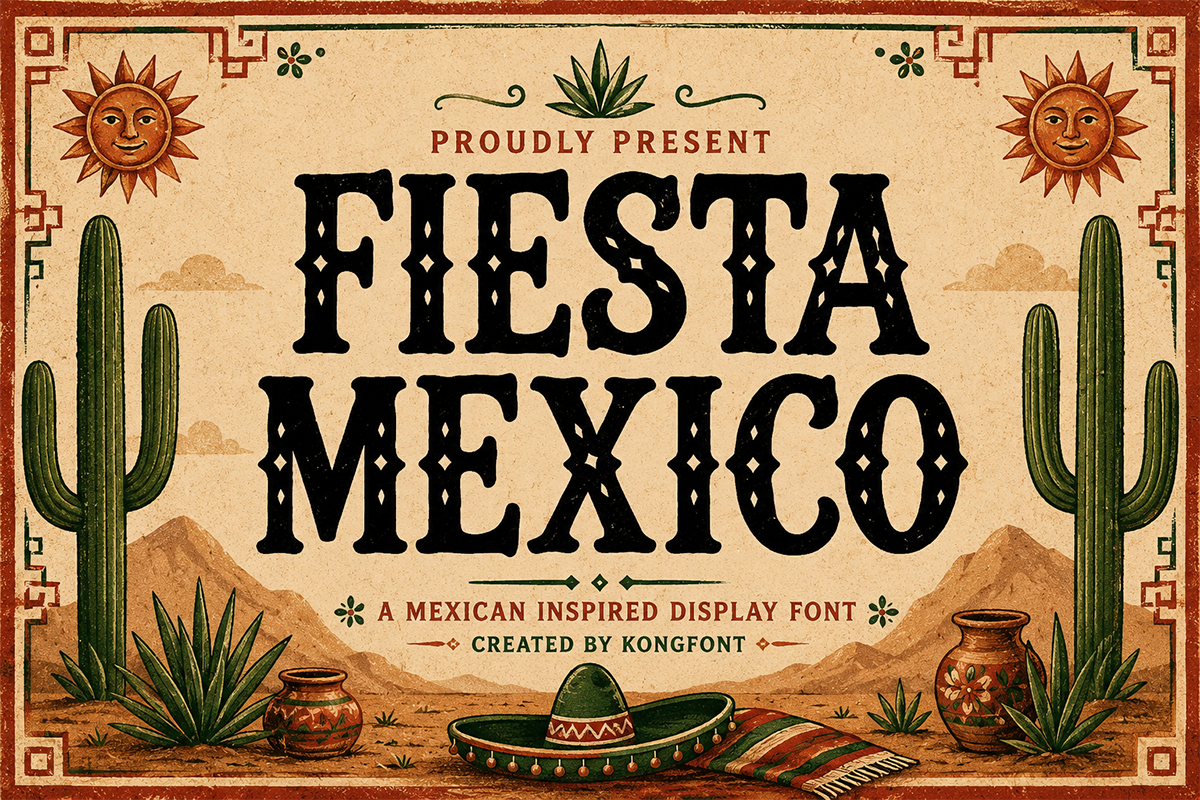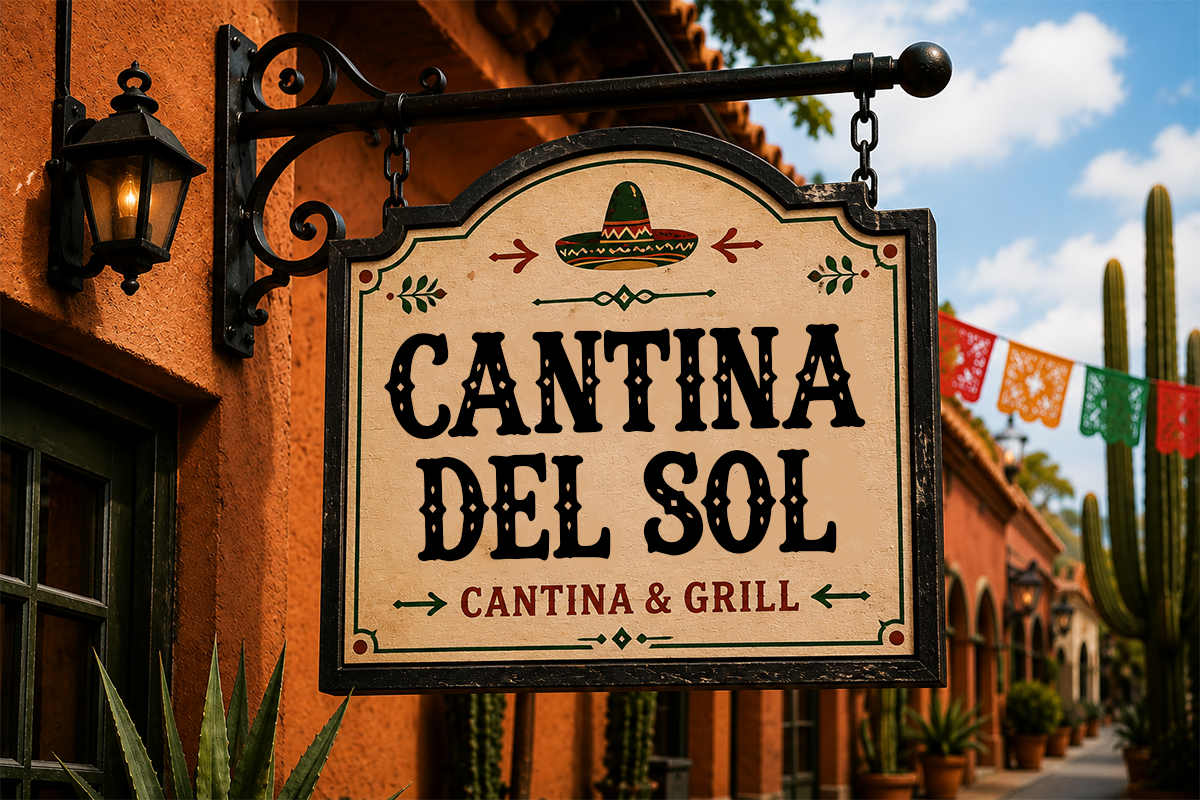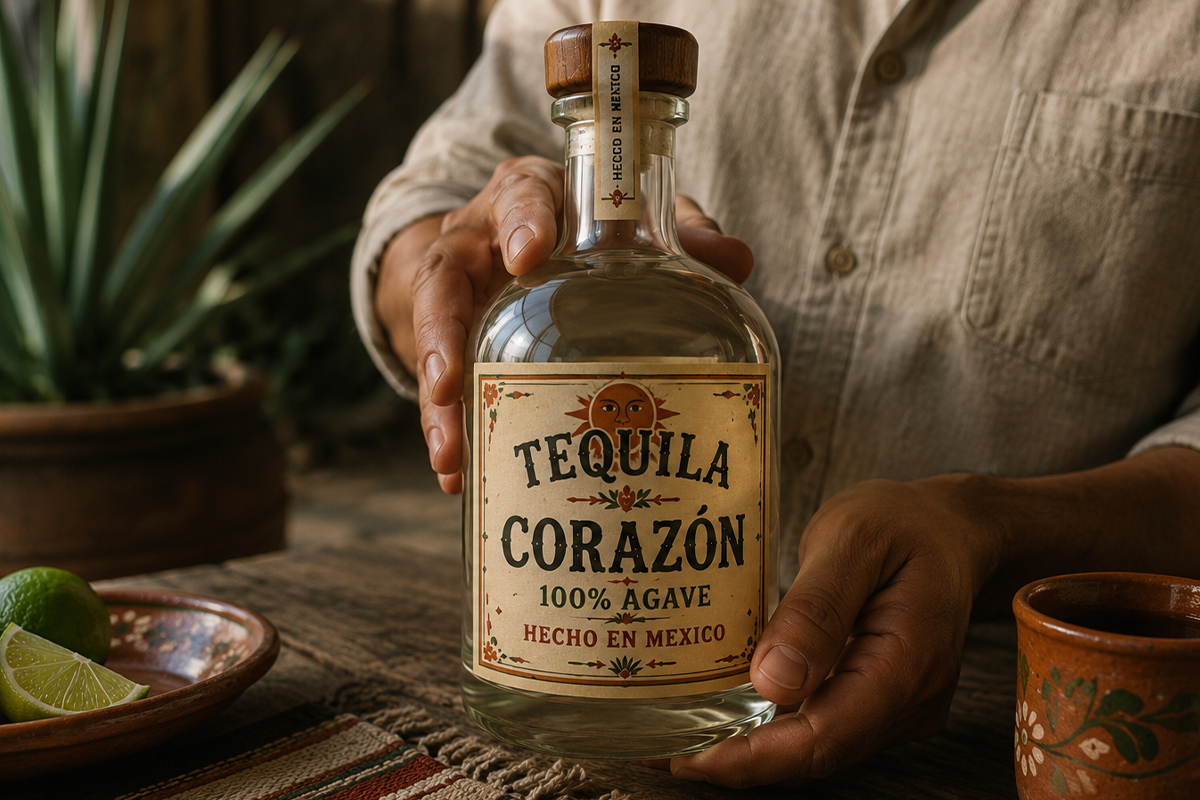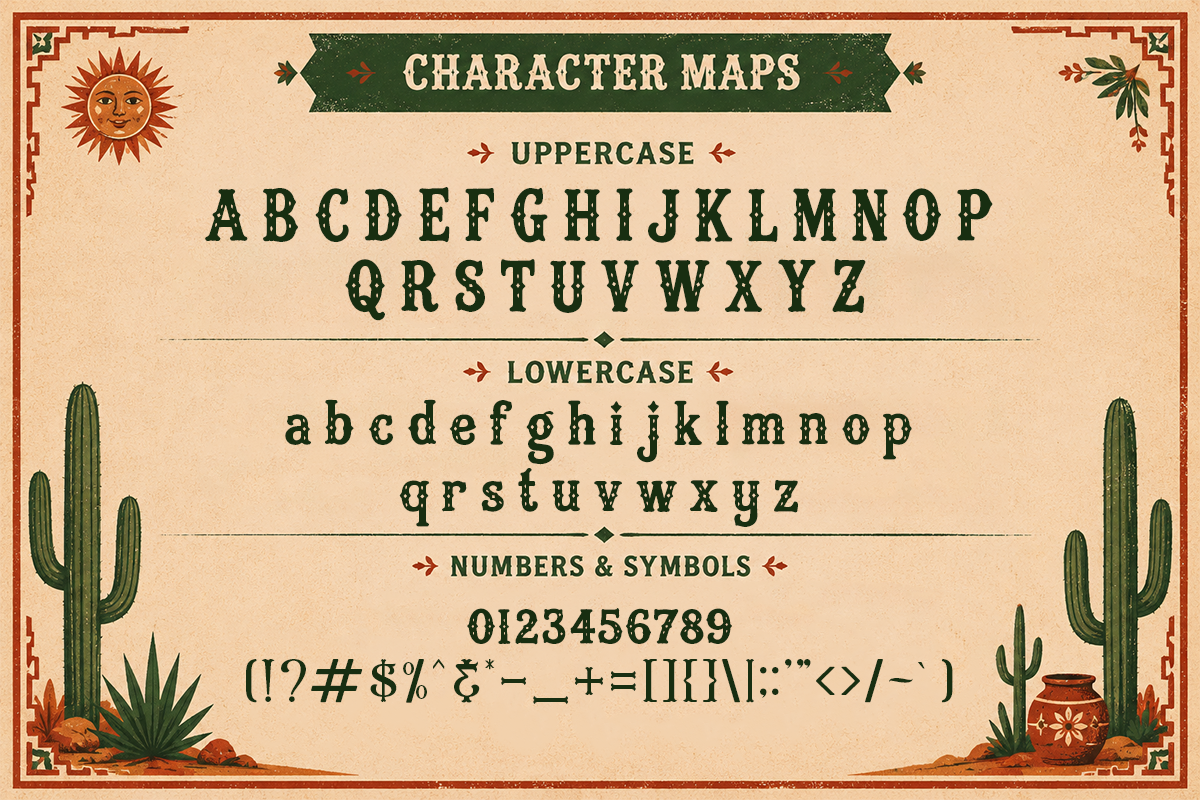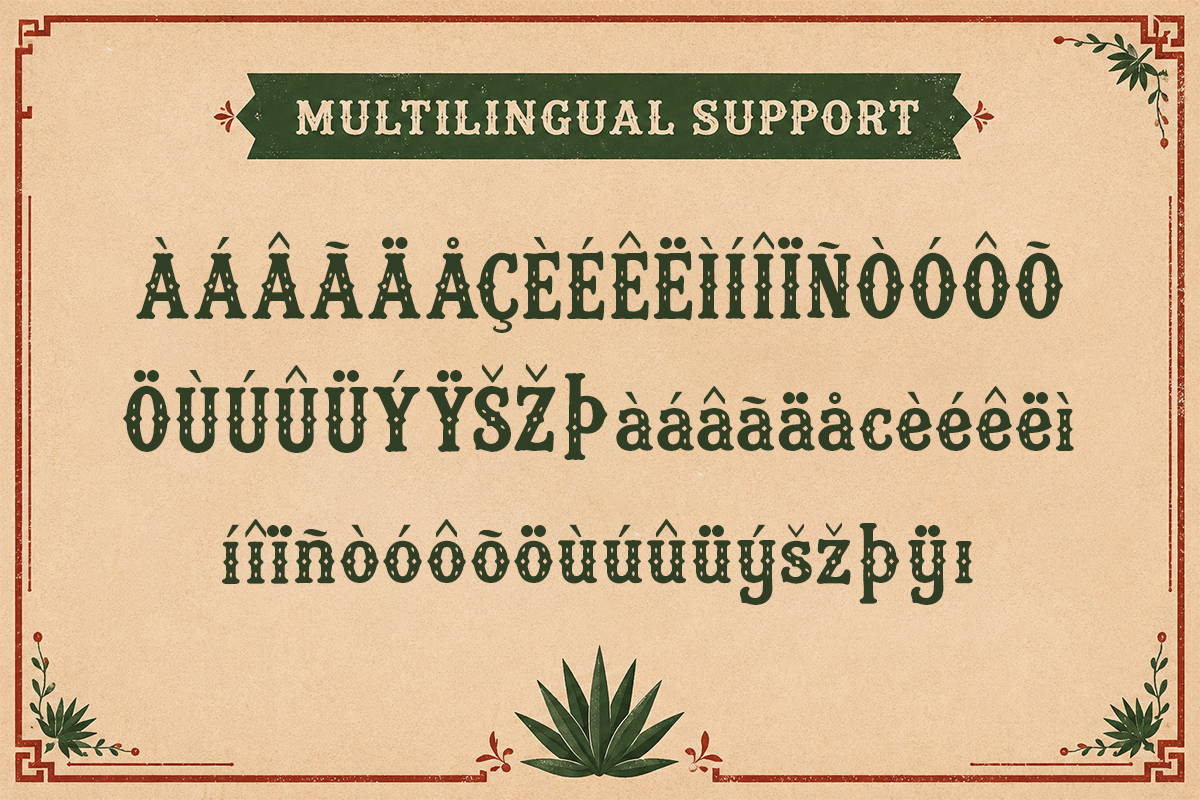
Fiesta Mexico A Modern Display Font
Fiesta Mexico A Modern Display Font is a cheerful modern display font inspired by festive Mexican culture, colorful celebrations, and playful handmade lettering. With bold shapes, friendly curves, and a lively personality, this font is perfect for creating designs that feel fun, warm, and eye-catching.
It works beautifully for logos, posters, packaging, children’s products, food branding, party invitations, social media graphics, merchandise, YouTube thumbnails, and playful advertising. Fiesta Mexico A Modern Display Font brings a joyful and energetic touch to every design while staying clear, readable, and easy to use.